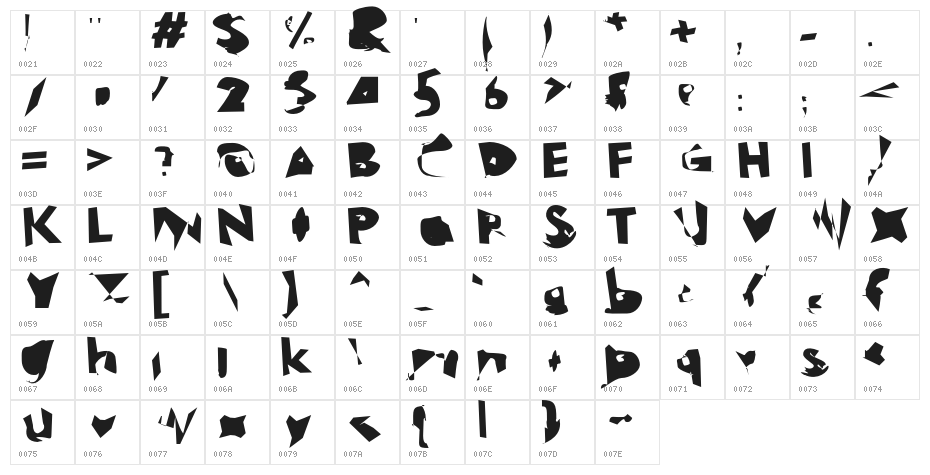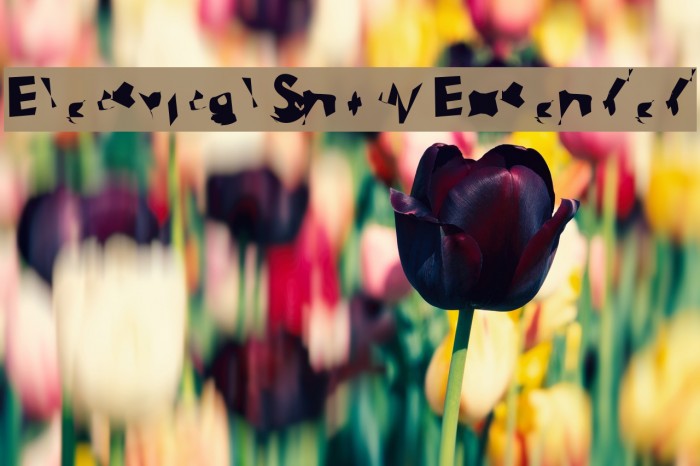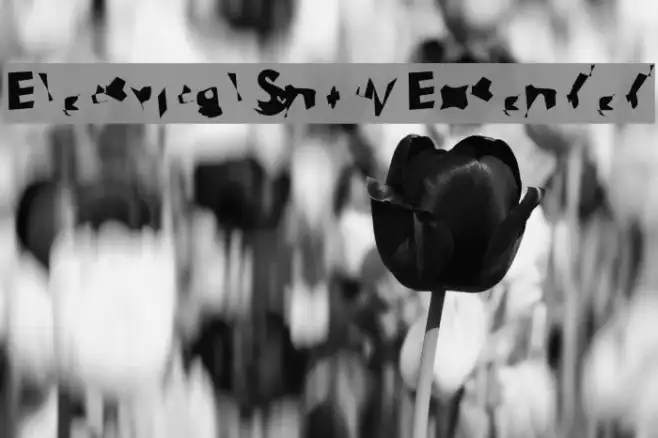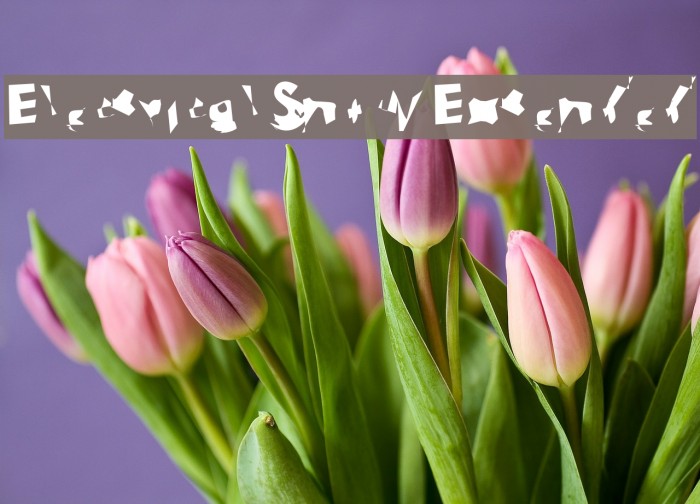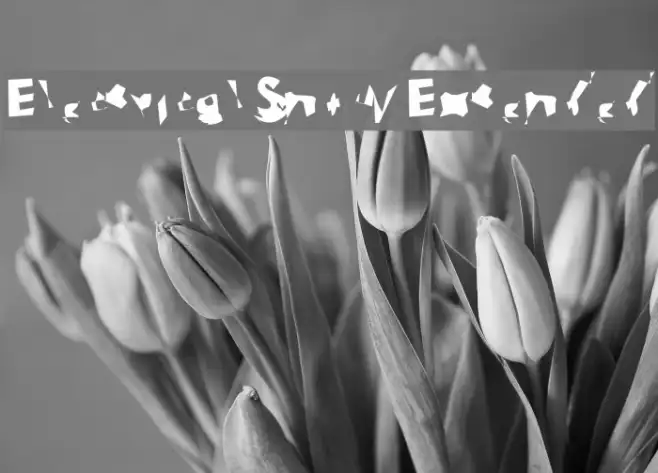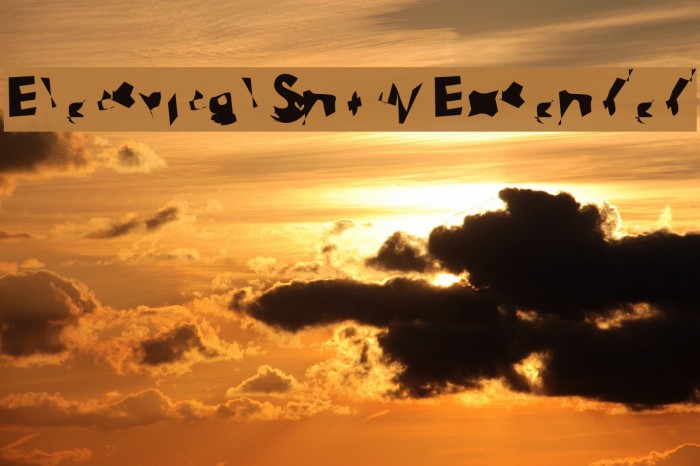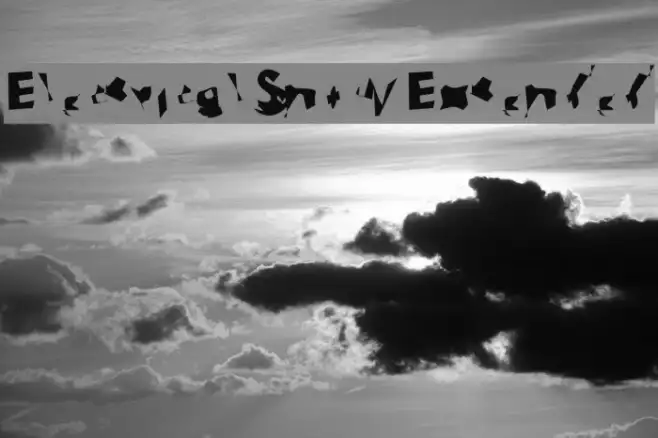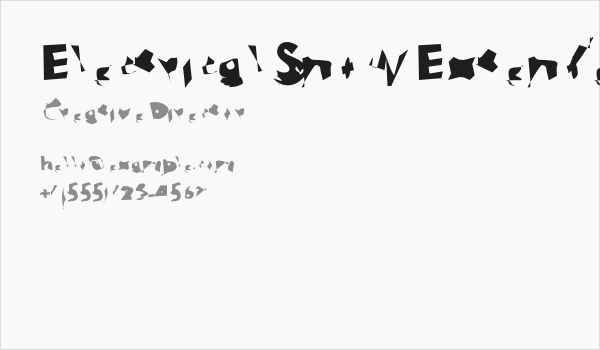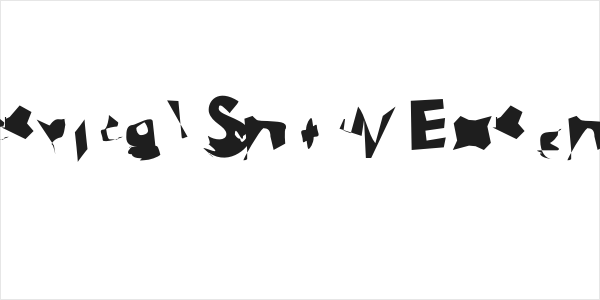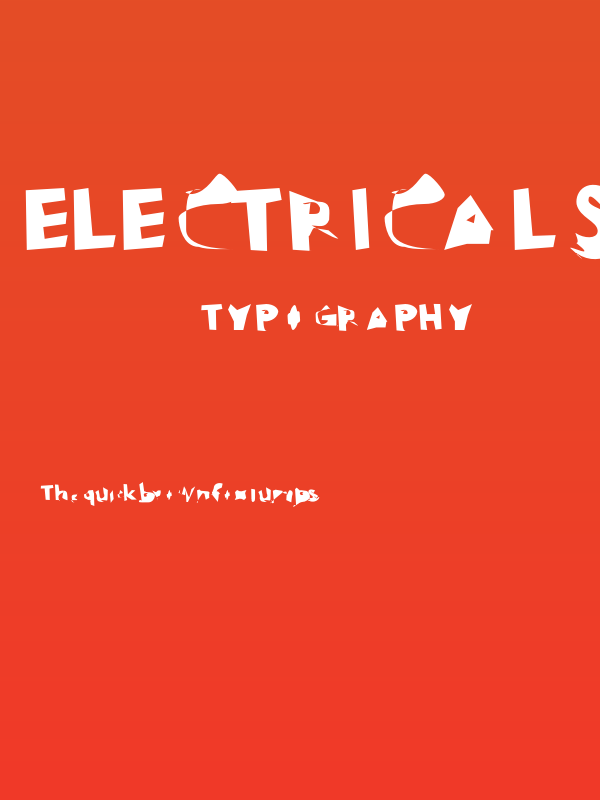
Electrical Snow Extended Font
Electrical Snow Extended Description
This font features a highly distinctive and abstract design, characterized by sharp, jagged edges and irregular shapes that give it a chaotic and energetic appearance. The letters are bold and heavily stylized, with a fragmented look that suggests movement and dynamism. The uppercase and lowercase letters maintain a consistent theme, with each character appearing as if it has been shattered or sliced, creating a sense of disarray. Numbers and special characters follow the same design principles, ensuring uniformity across the font. The overall aesthetic is modern and unconventional, making it suitable for projects that require a bold and eye-catching typeface.
| Overall Style | Modern, Abstract |
| Proposed Projects | Ideal for album covers, posters, edgy branding, and any project needing a striking, unconventional typeface. |